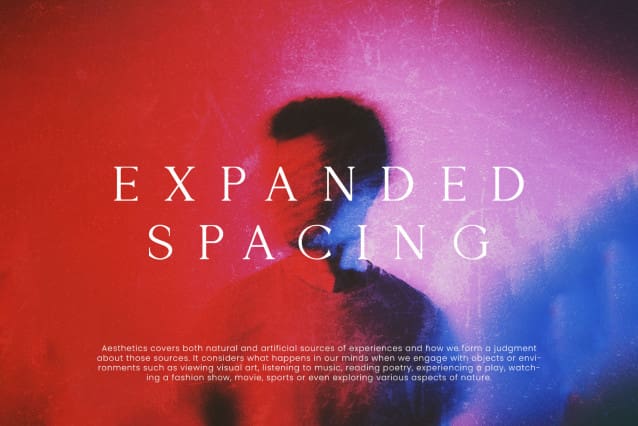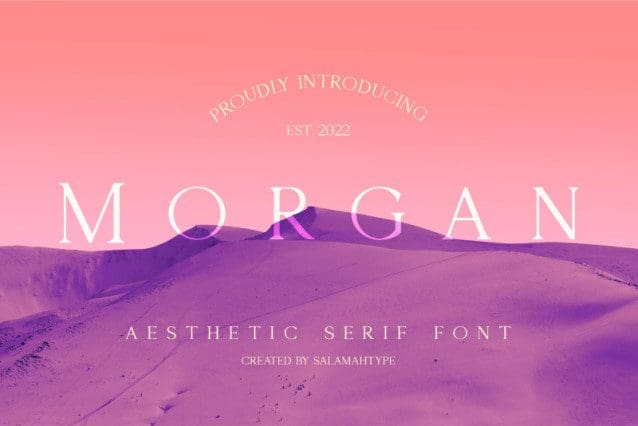
Morgan Aesthetic Serif Font
Morgan Aesthetic Serif Font, which is a serif font consisting of 4 styles. Morgan is an elegant and clean font suitable for a variety of your business needs, from product packaging, product branding, logos, books, labels, wedding invitations and more.
Designer Name: salamahtype